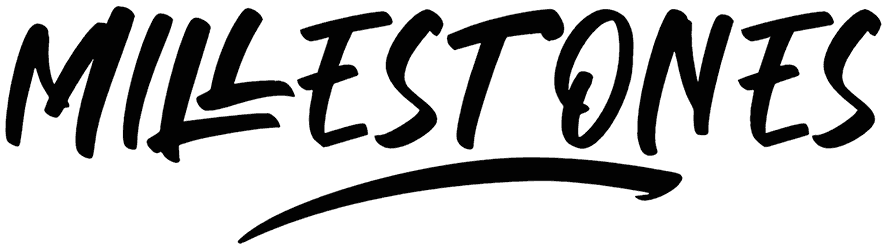
Don’t Click Me is a brush font with letters that are thick and thin at the same time. It exudes a feminine feel.
Although it only comes with limited characters that cover the lowercase and 3 uppercase letters, it is very useful for your creative projects, hand-lettering, and logo designs. Don’t overlook this cute, feminine font; try it out on your lettering now!
Introducing Don’t Click Me, a thick and thin style handwritten brush and ink font to makes you addicted more and more on it. Cause i feel pretty addicted to these kinda font lately 🙂